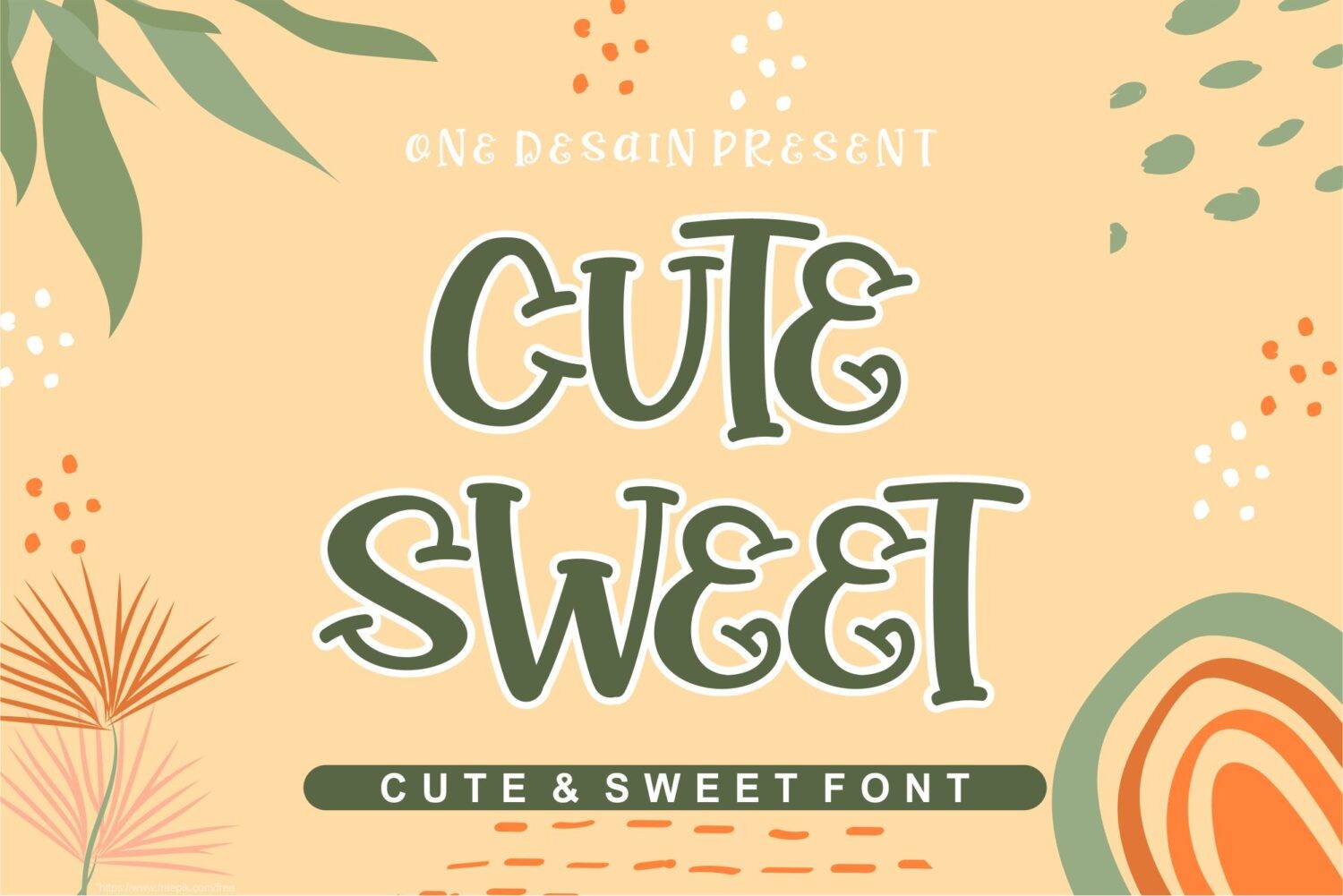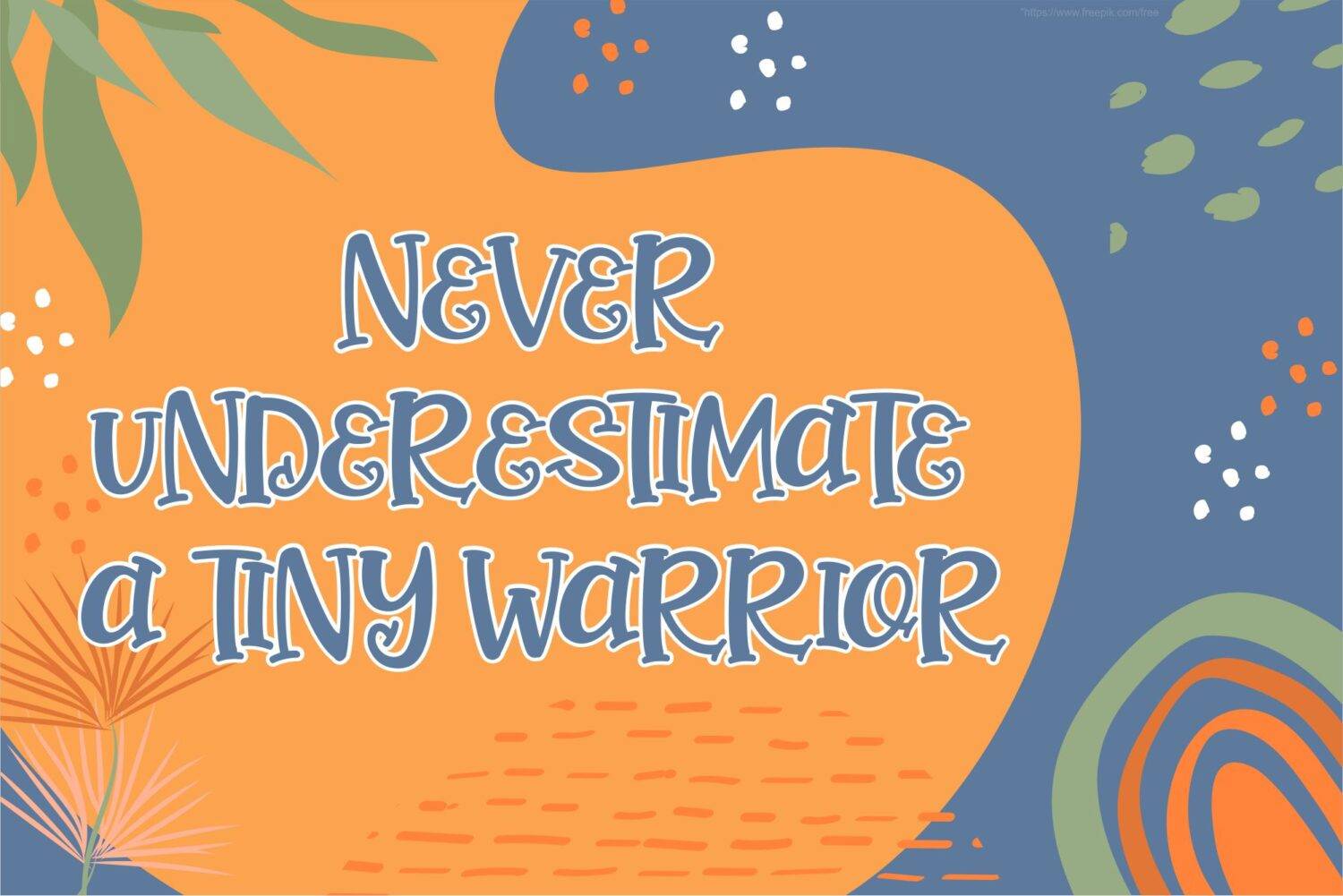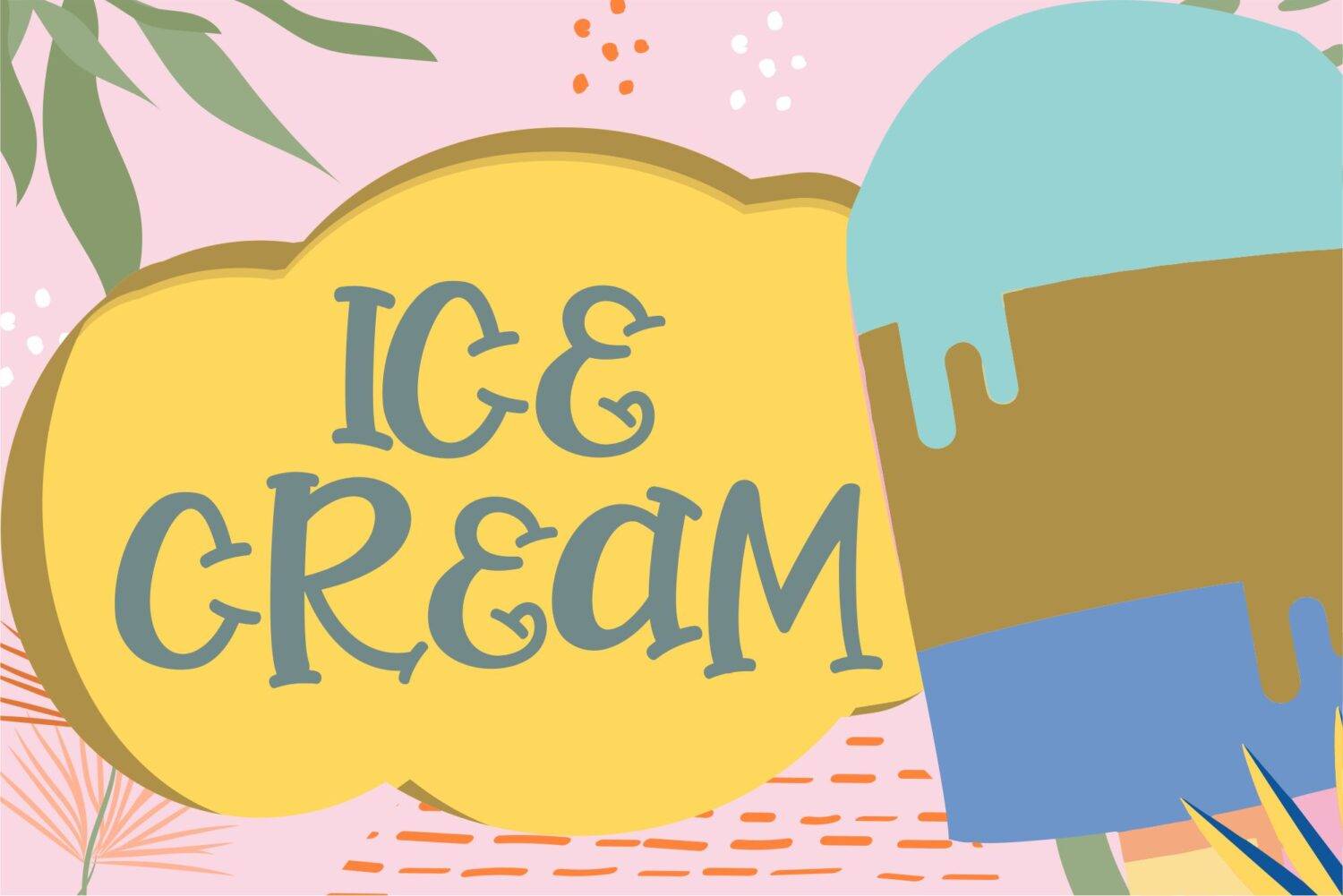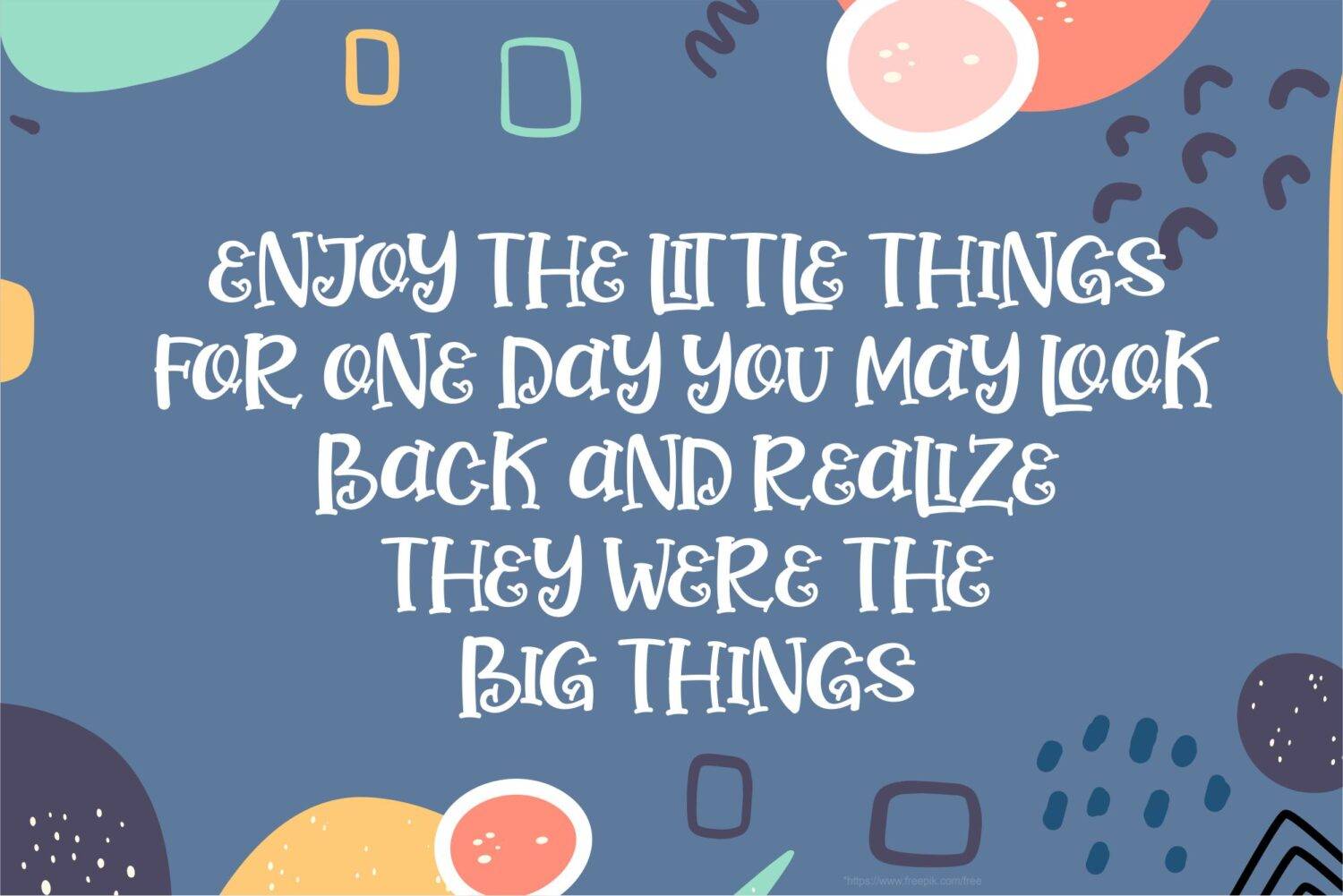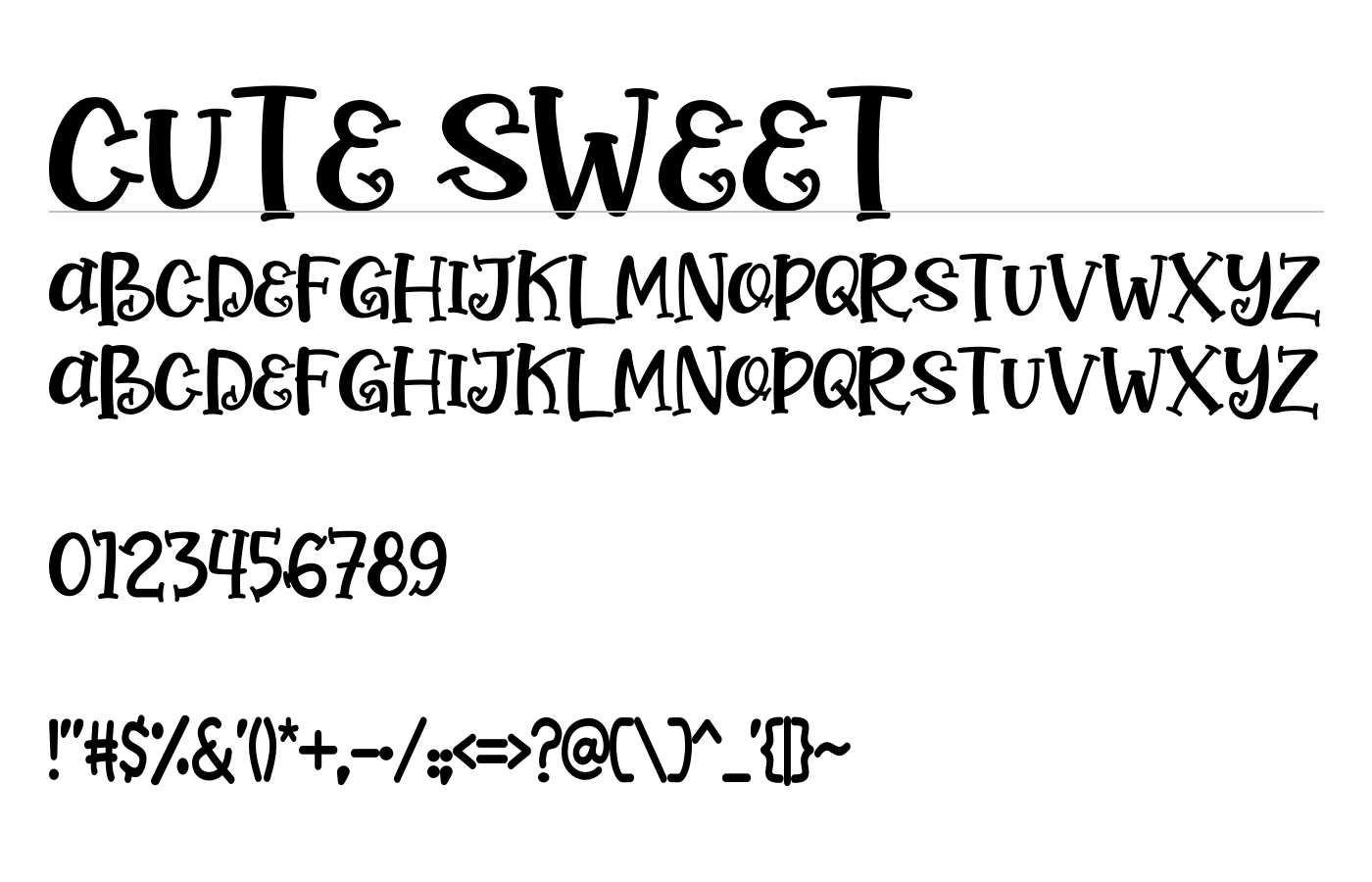
Cute Sweet is a playful and whimsical sans serif font with a hand-drawn feel, featuring lively, rounded strokes and charming curly details that add a touch of fun and personality. Its moderate weight and open spacing make it ideal for informal designs, perfect for children’s materials, greeting cards, or branding that aims to convey friendliness and creativity. This font works best in headlines and logos where its distinctive character can shine.
Cute Sweet Font
About Cute Sweet Font